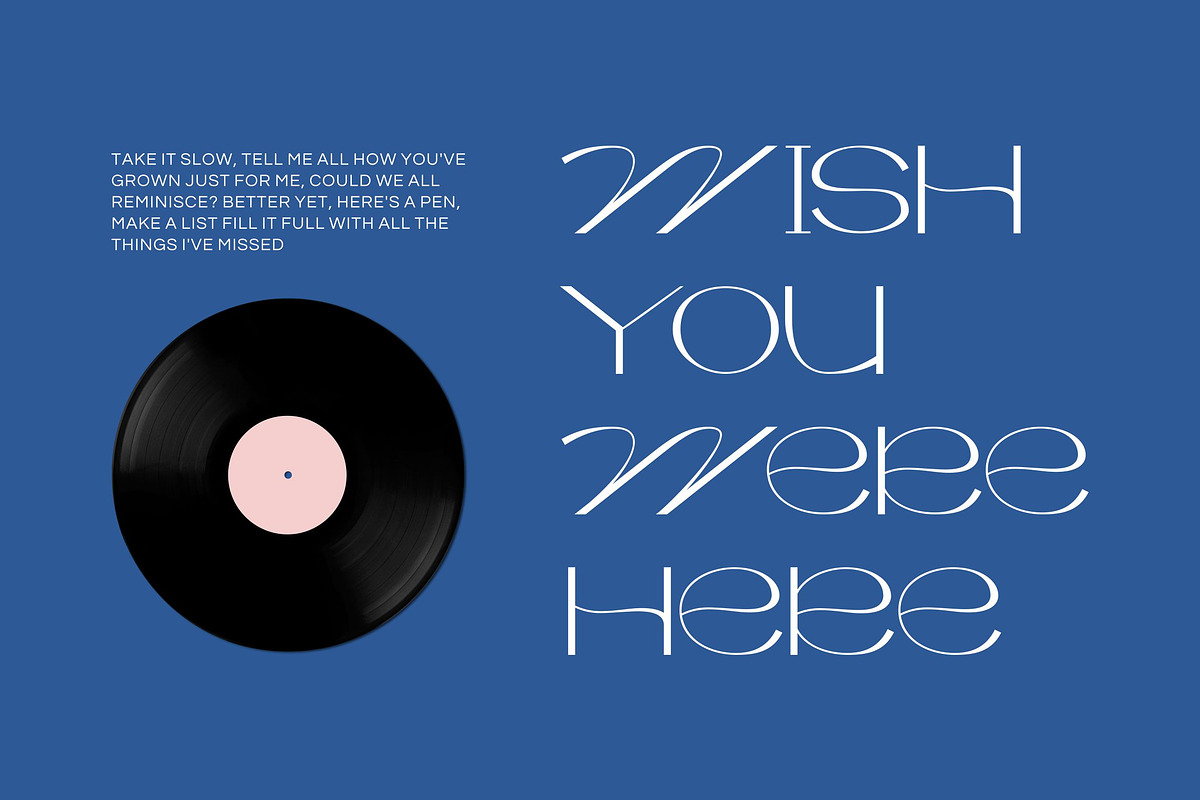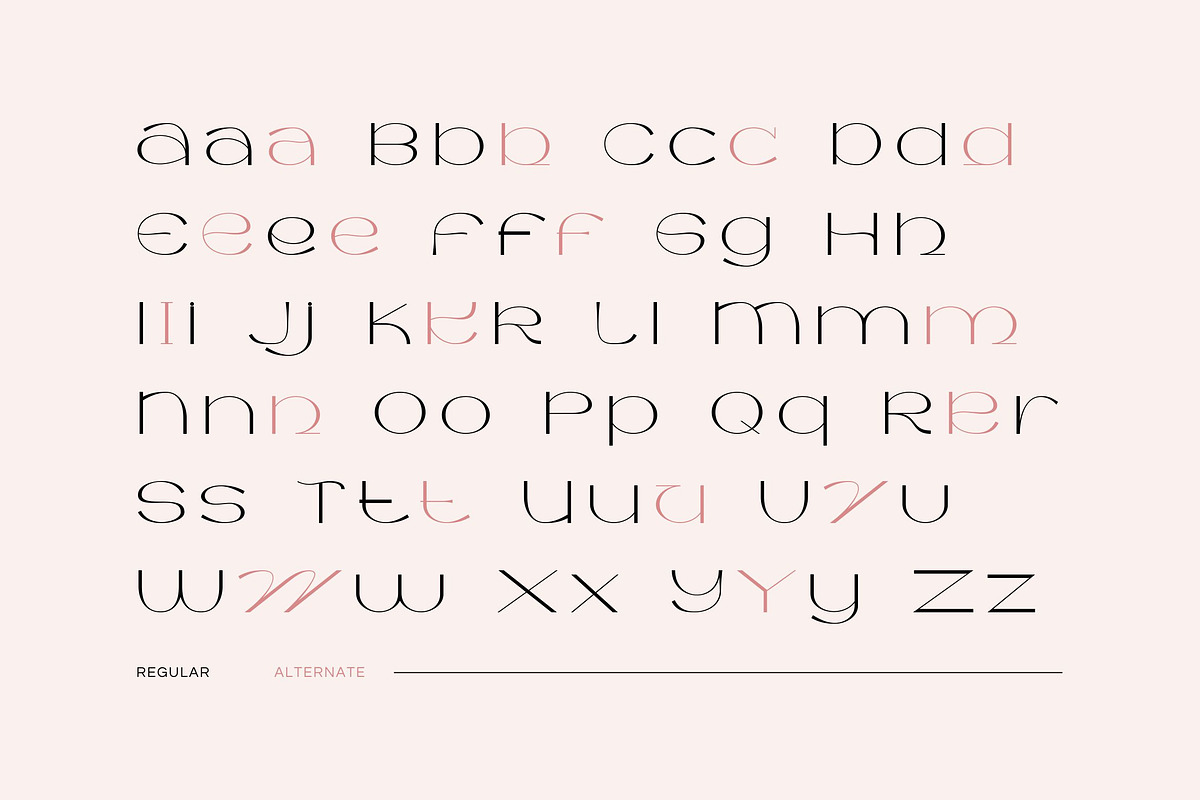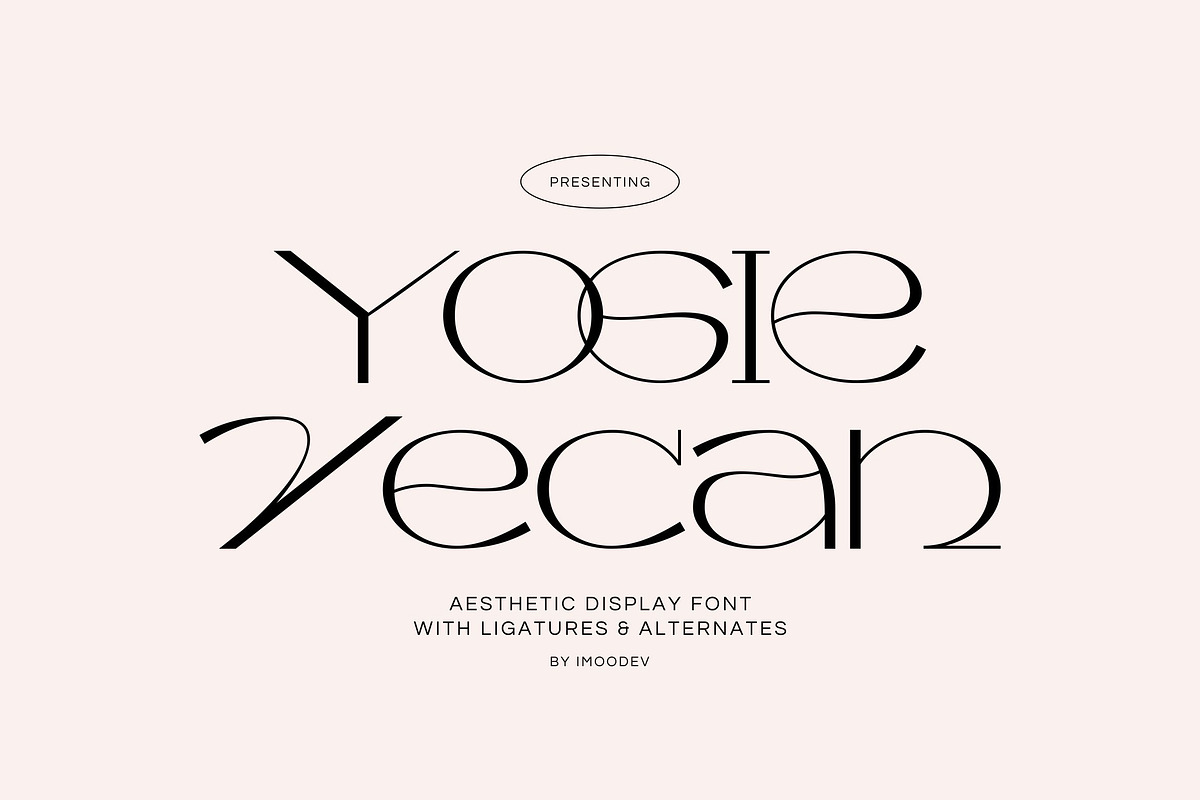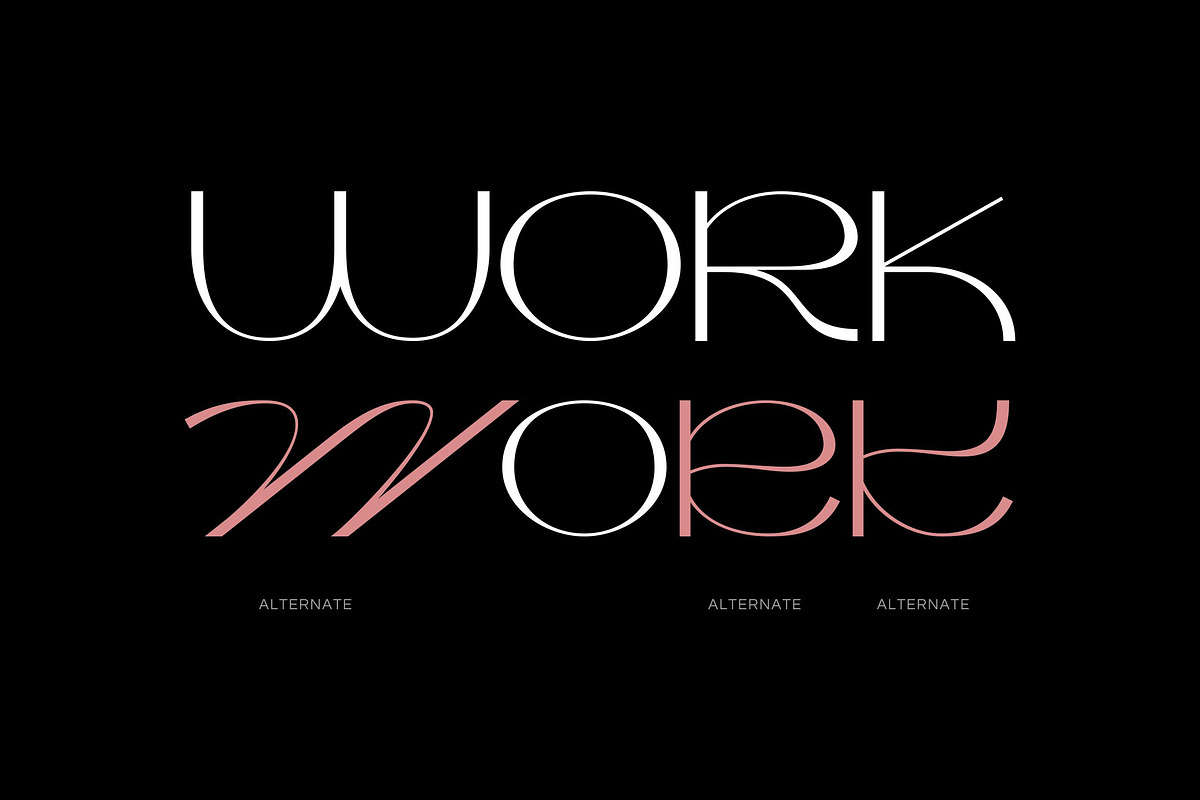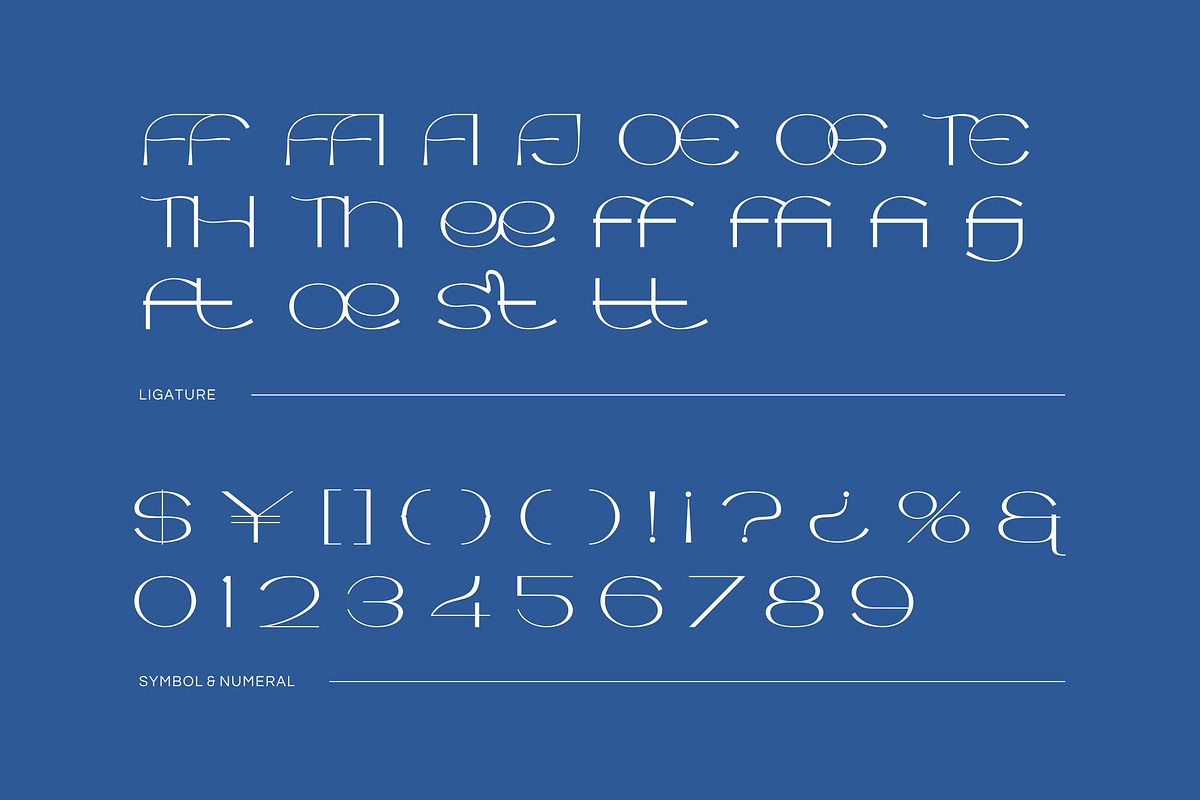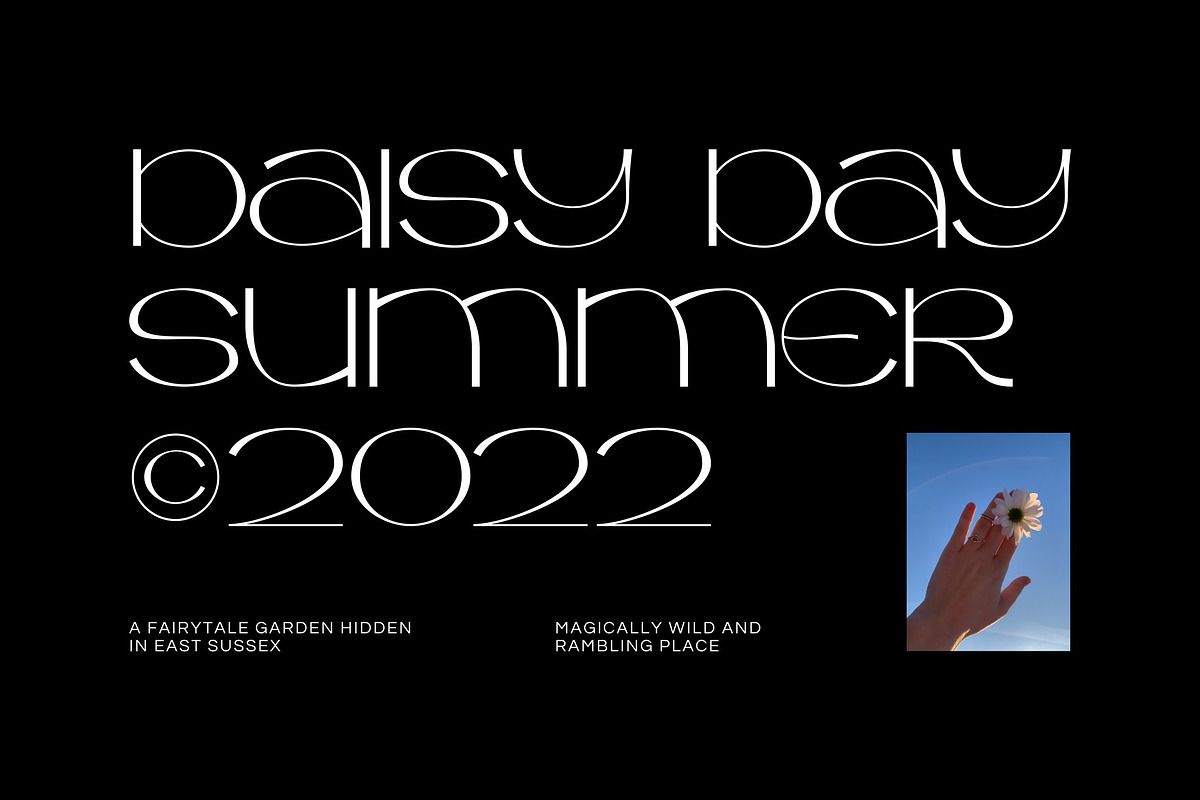
Yogie Vecan - Aesthetic Wide Font
Yogie Vecan is a captivating display font where modern minimalism and expressive artistry converge. Yosie Vecan is a stunningly versatile typeface designed to bring a touch of elegance and sophistication to your design projects.
Yogie Vecanan is a chic, high contrast sans serif. Its default letterforms are crafted with clean, monoline strokes and geometric precision, creating an airy, refined, and beautifully legible foundation.
But the true magic of Yogie Vecan is unlocked through its extensive set of stylistic alternates and ligatures. With a single click, you can transform your text from structured and modern to flowing and calligraphic. The alternate characters introduce graceful swashes, organic curves, and expressive connections that mimic a bespoke, handwritten signature.
Ideal for high end branding, fashion editorials, magazine headlines, luxury product packaging, and social media graphics.